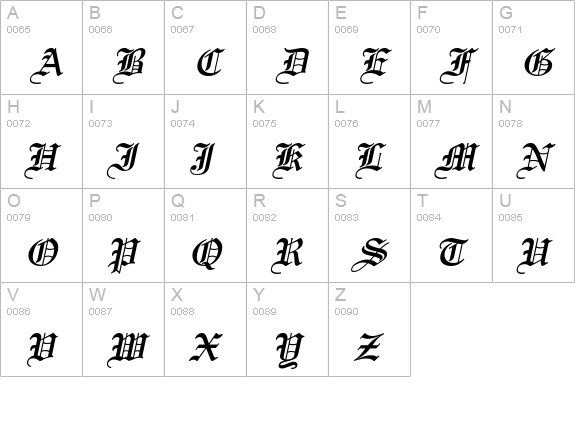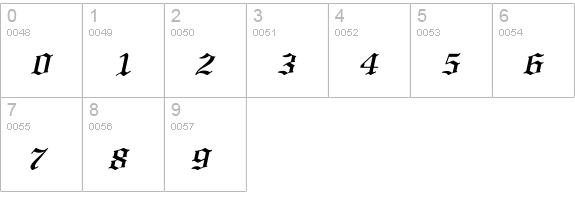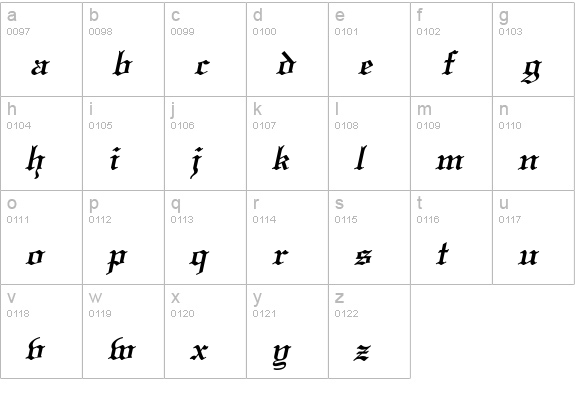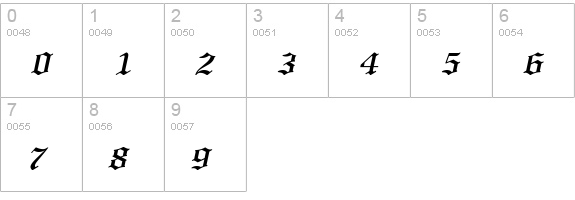
Certificate BoldItalic Font Details
The Certificate BoldItalic font is a sophisticated and elegant typeface designed for creating formal documents and certificates. Its bold and italicized style exudes a sense of importance and professionalism, making it perfect for awards, diplomas, and official documents. The graceful curves and refined details of this font add a touch of class to any design. Best of all, the Certificate BoldItalic font is available for free download at FontsMarket.com. This means you can easily access this beautiful and versatile font for all your creative projects without any cost. Whether you're designing certificates for academic achievements or crafting stylish invitations, the Certificate BoldItalic font is sure to make a lasting impression. Elevate your designs with this exquisite typeface today!